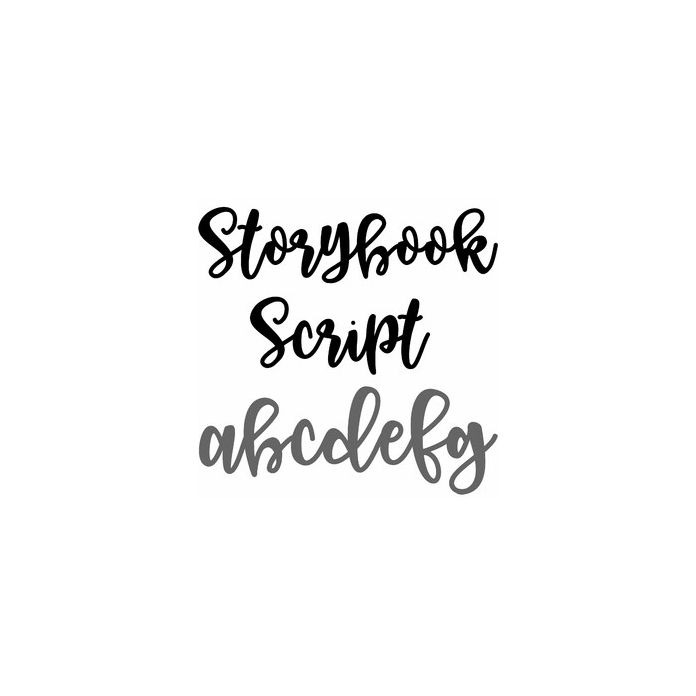
Storybook is a playful script font for Halloween, Thanksgiving, Birthdays, and Christmas crafts, cards, signs, decorations, labels, stickers, monograms, and personalization projects. Includes alphabet, numbers, and punctuation.